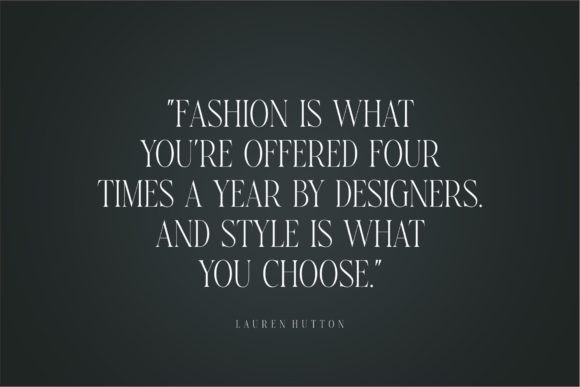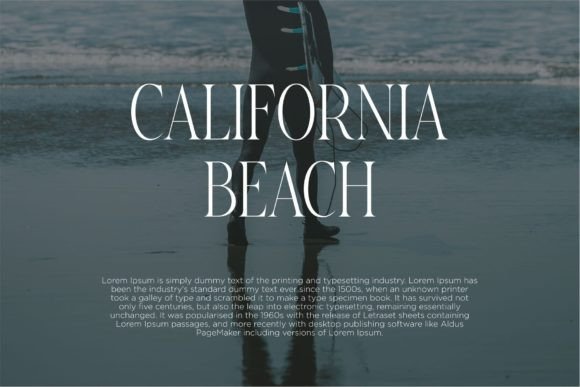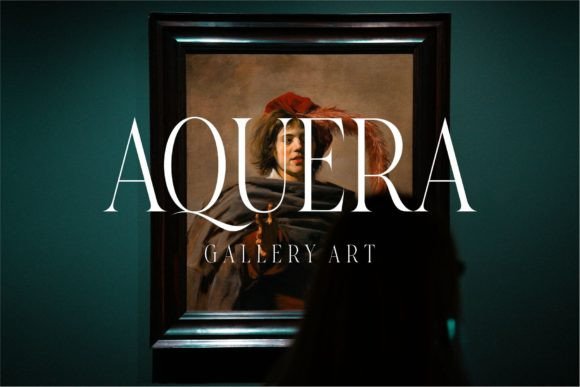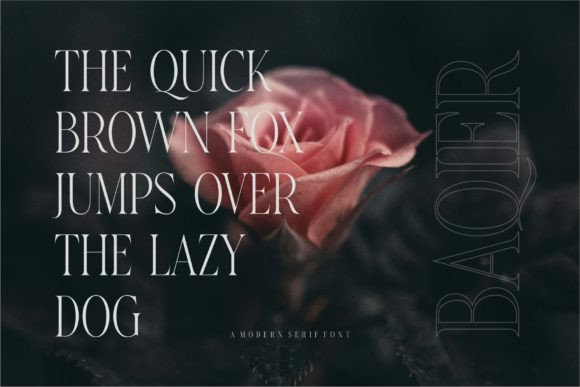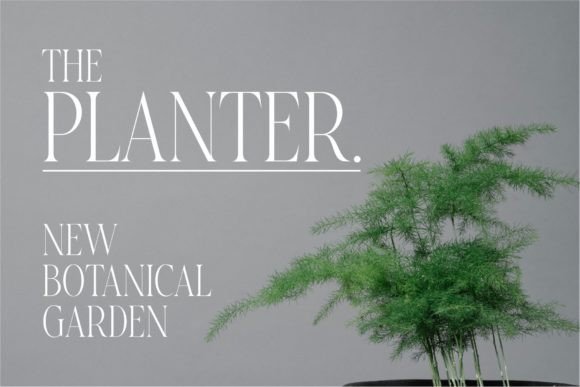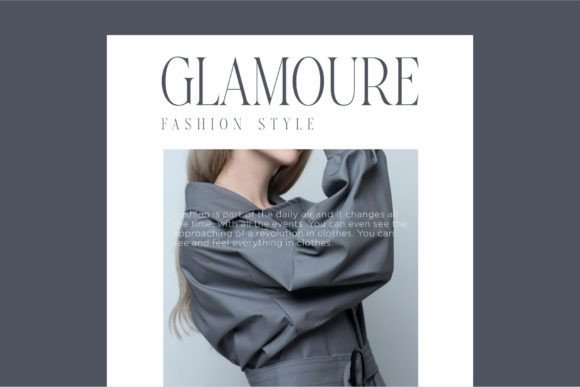
Baqier Modern Serif Font: Elevate Your Designs with Elegance and Sophistication
In the world of design, typography plays a crucial role in conveying messages, expressing creativity, and building brand identities. For designers and crafters seeking a font that embodies modernity, elegance, and versatility, the **Baqier Modern Serif Font** is an exceptional choice. Inspired by the famous minimalist logo, this font is perfect for a wide range of design applications, from templates and brochures to logos, invitations, and more.
The Inspiration Behind Baqier Modern Serif Font
The Baqier Modern Serif Font draws its inspiration from the minimalist logo design movement, which emphasizes simplicity, clean lines, and a clutter-free aesthetic. This font takes the core principles of minimalist design and translates them into a typographic masterpiece that is both contemporary and timeless. The result is a font that exudes sophistication, making it ideal for designers who aim to create elegant and refined designs.
Key Features of Baqier Modern Serif Font
The **Baqier Modern Serif Font** boasts several key features that make it a versatile and valuable addition to any designer’s toolkit:
- Modern Serif Design: The font’s modern serif design ensures that your text stands out with a touch of elegance and sophistication, perfect for designs that require a bit of luxury and refinement.
- Clean and Legible: With its clean lines and highly legible characters, this font is excellent for body text and headings, making it suitable for a wide range of design projects.
- Versatile: Whether you’re working on a branding project, crafting an invitation, or designing a brochure, the Baqier Modern Serif Font adapts seamlessly to various design contexts.
- Elegant Crafting: For crafters and artists, this font offers a beautiful way to add a professional touch to handmade products, packaging, and marketing materials.
Design Applications of Baqier Modern Serif Font
The versatility of the **Baqier Modern Serif Font** makes it suitable for a multitude of design applications:
- Templates: Create stunning templates for websites, presentations, or social media that require a modern and elegant typography.
- Brochures and Flyers: Make your marketing materials stand out with a clean and sophisticated font that captures the reader’s attention.
- Videos and Advertising: Use the Baqier Modern Serif Font in video titles, subtitles, or advertising materials to add a touch of class and professionalism.
- Branding and Logos: For brands aiming to convey elegance, sophistication, and modernity, this font can be a valuable asset in creating a strong visual identity.
- Invitations and Event Designs: Add an elegant touch to your invitations, event posters, and related design materials with this beautiful font.
- Layout Designs and Beauty Design: Perfect for designers working on beauty and lifestyle projects, requiring a font that speaks of luxury and modernity.
Why Choose Baqier Modern Serif Font?
Choosing the **Baqier Modern Serif Font** for your design projects comes with several advantages:
- Unique Aesthetic: Stand out from the crowd with a font that offers a fresh and unique aesthetic, inspired by minimalist design principles.
- Time-Saving: With a font that is versatile and easy to use, you can significantly reduce the time spent on selecting and pairing fonts for different projects.
- Professionalism: Elevate the professional quality of your designs with a font that exudes modernity and elegance.
| Font Name | Baqier Font |
| Author | dylla studio |
The **Baqier Modern Serif Font** is a powerful tool for designers and crafters looking to infuse their projects with a sense of modernity, elegance, and sophistication. Its inspiration from minimalist logo design, combined with its versatile and clean design, makes it an excellent choice for a wide range of applications. Whether you’re creating branding materials, crafting beautiful invitations, or designing elegant brochures, this font is sure to enhance your designs and help you achieve your creative goals.
Embrace the world of elegant typography with the Baqier Modern Serif Font and discover the difference it can make in your design projects.